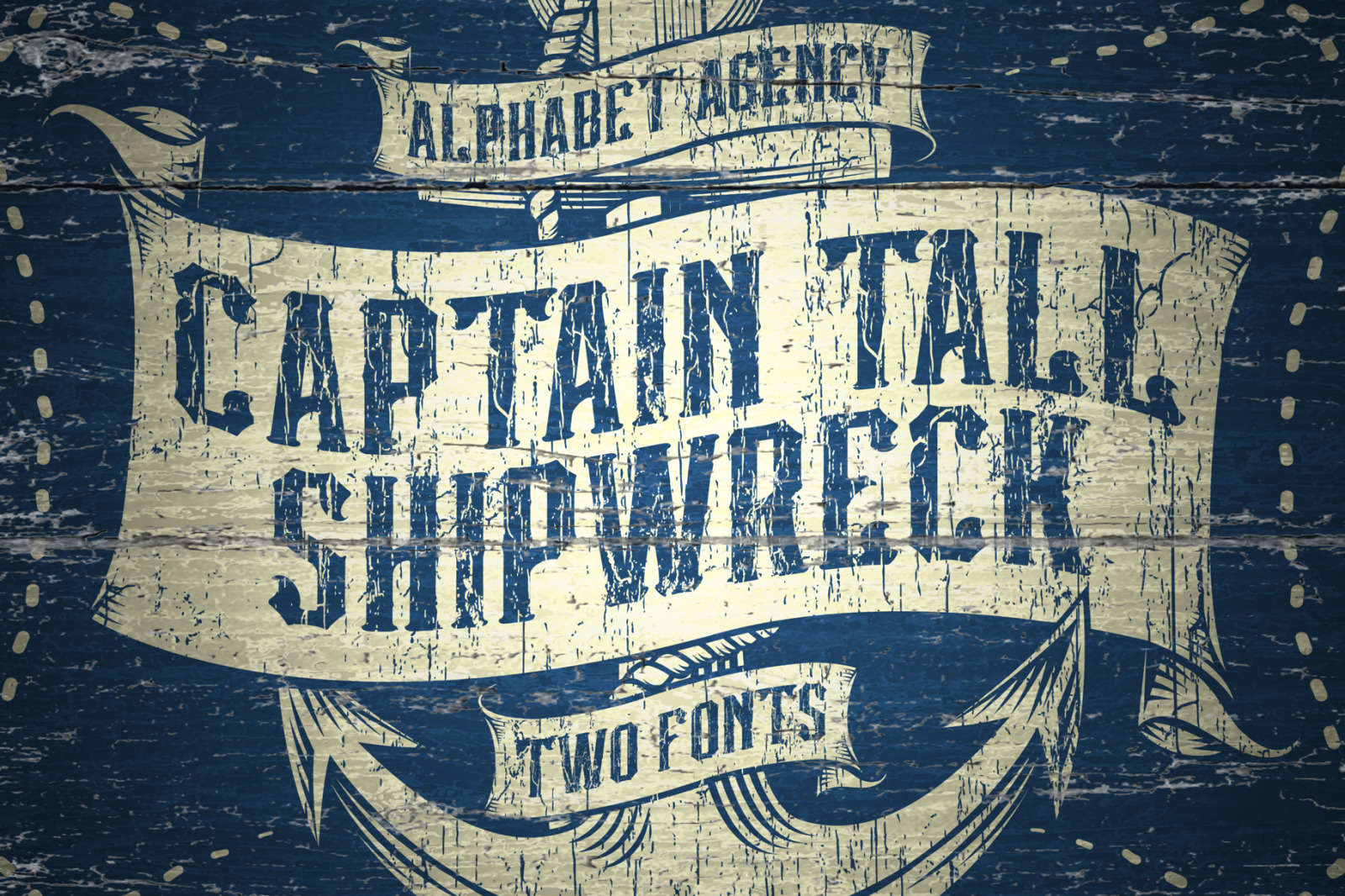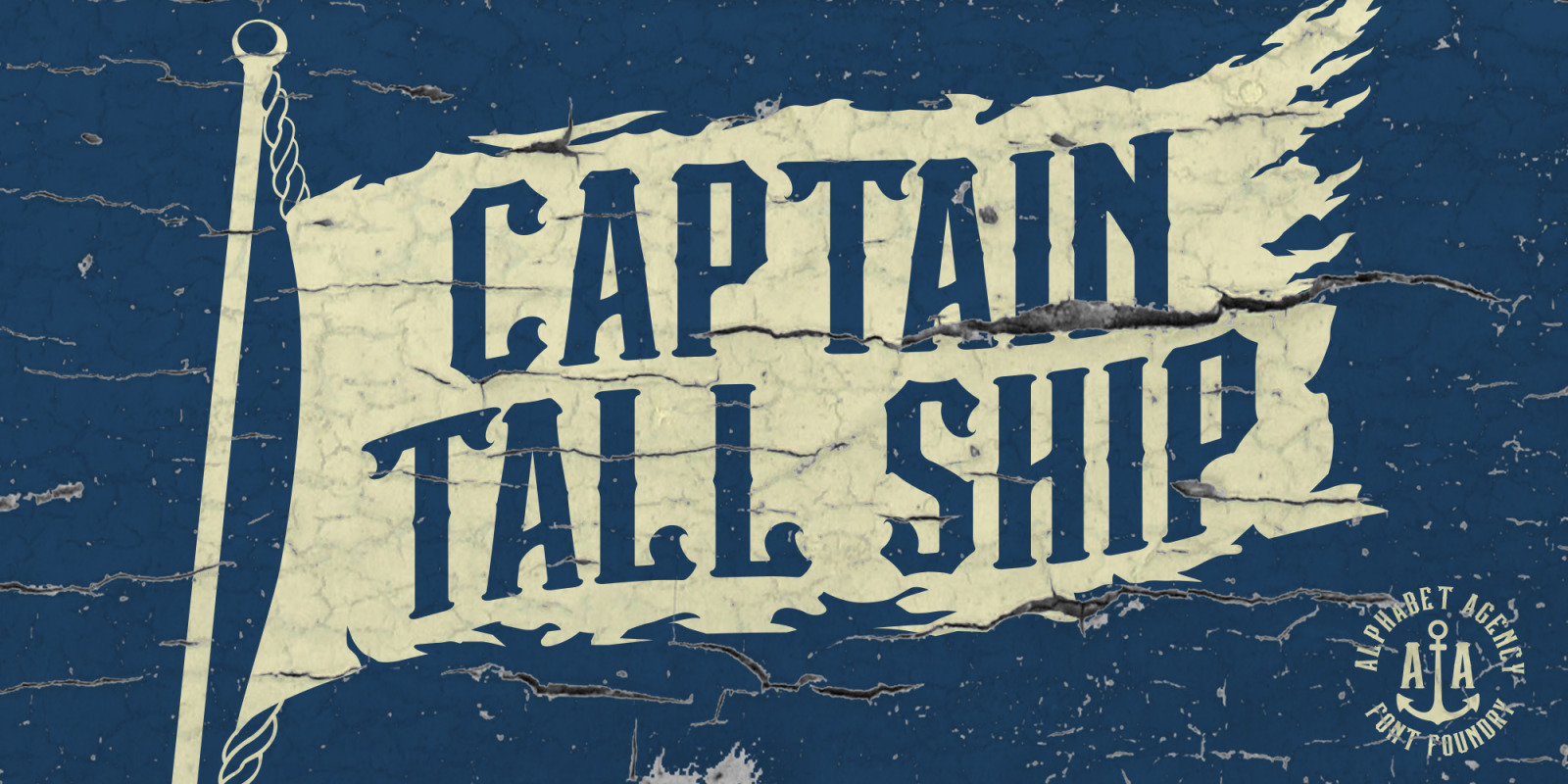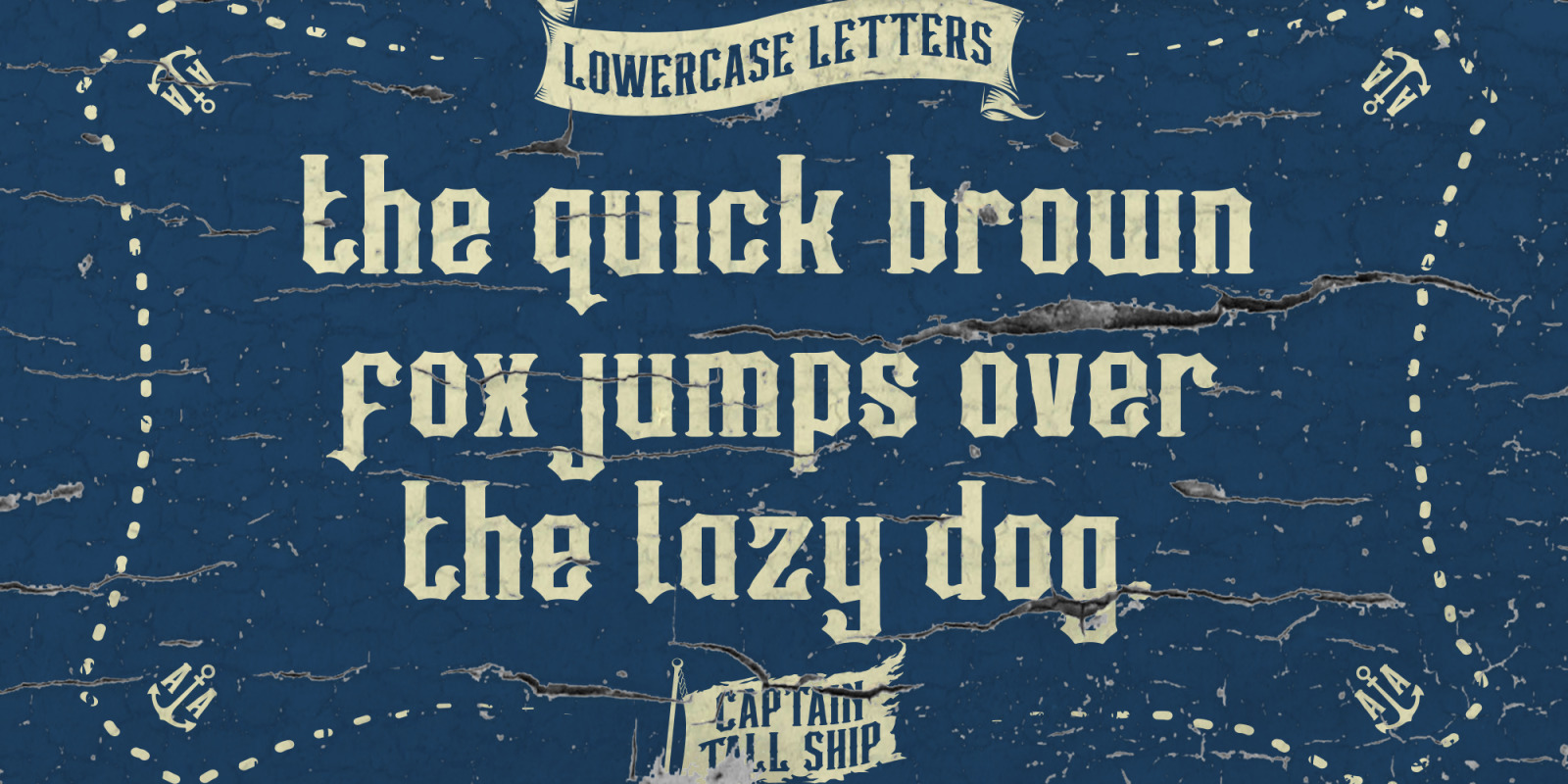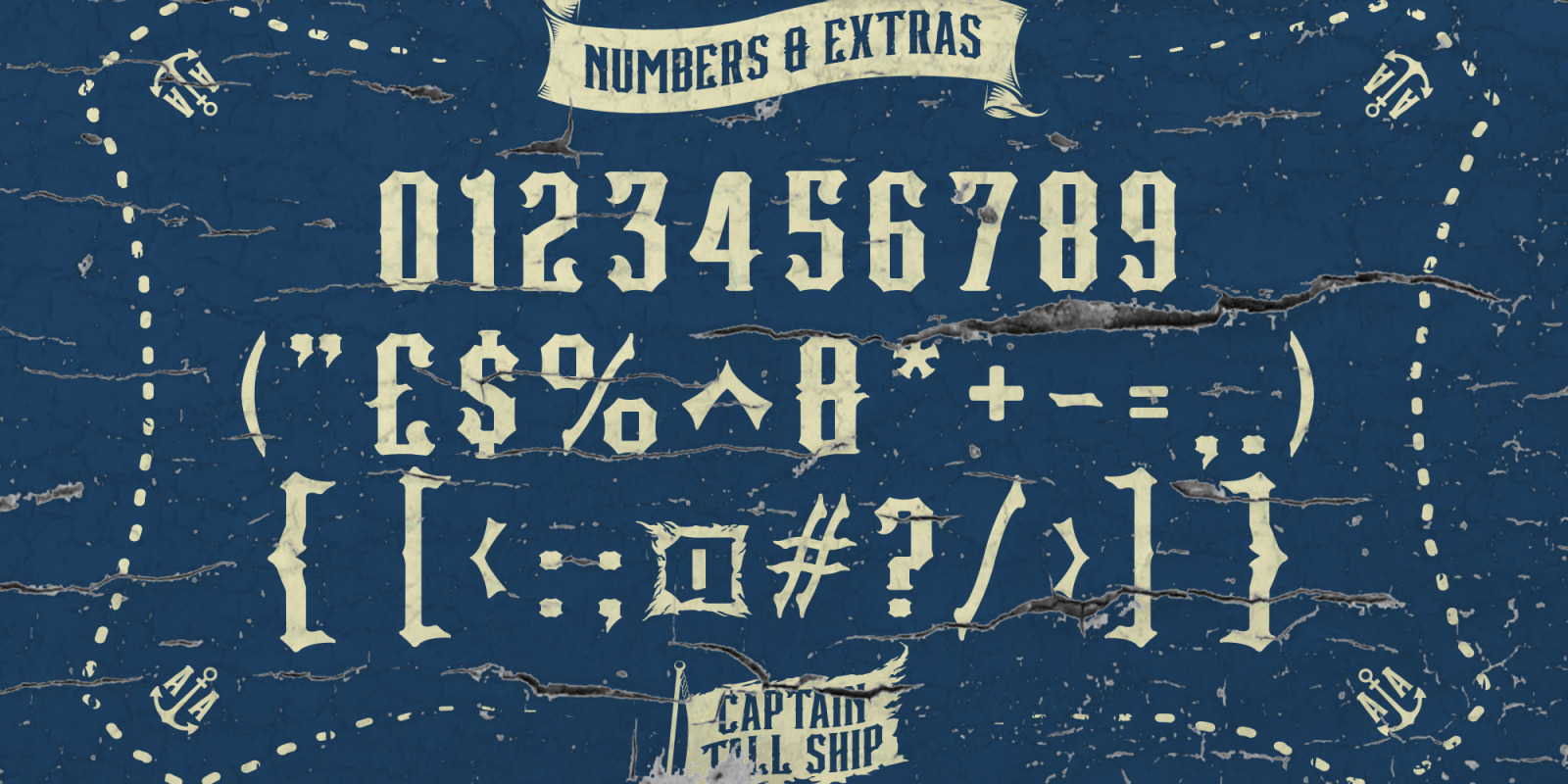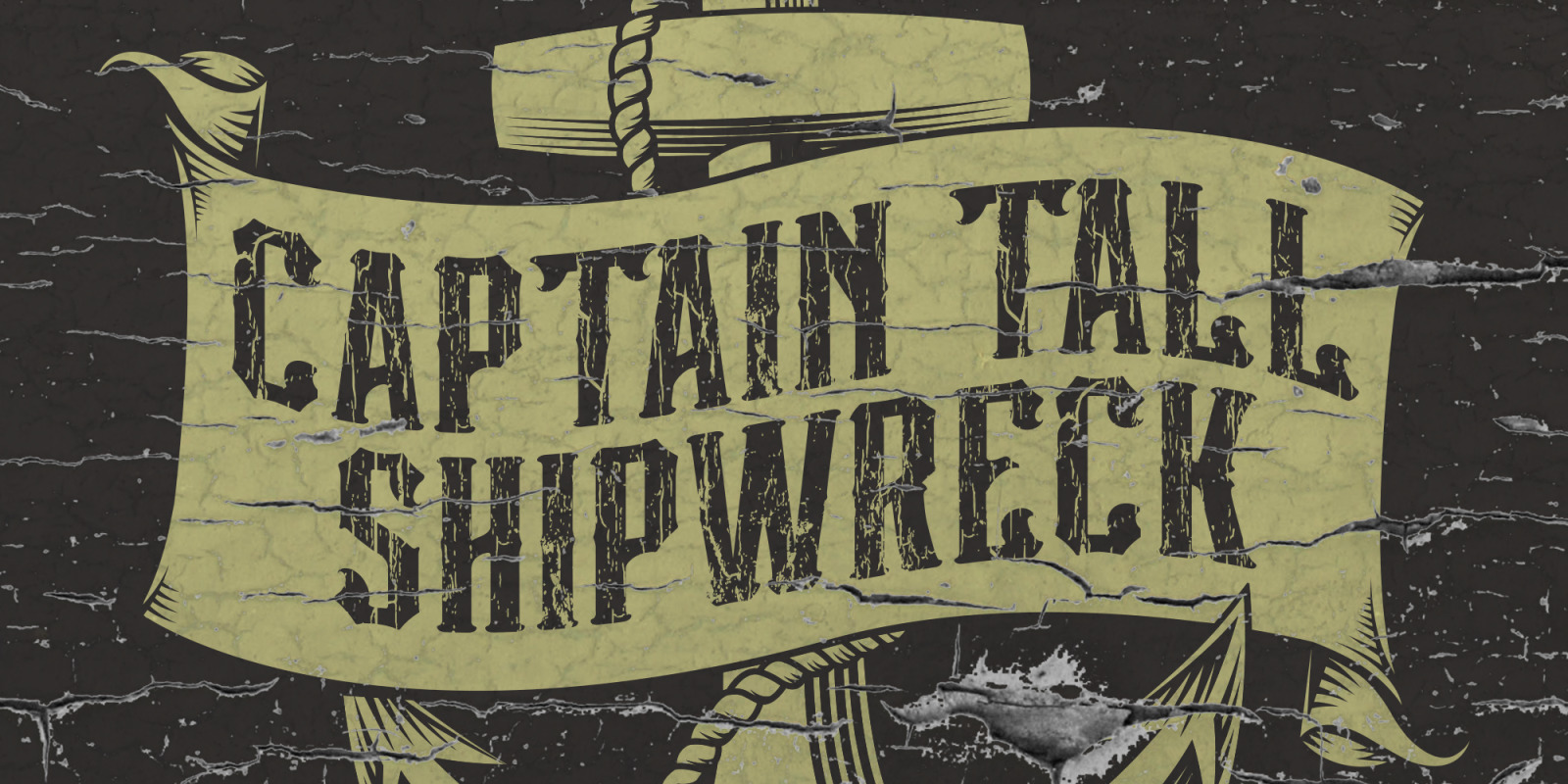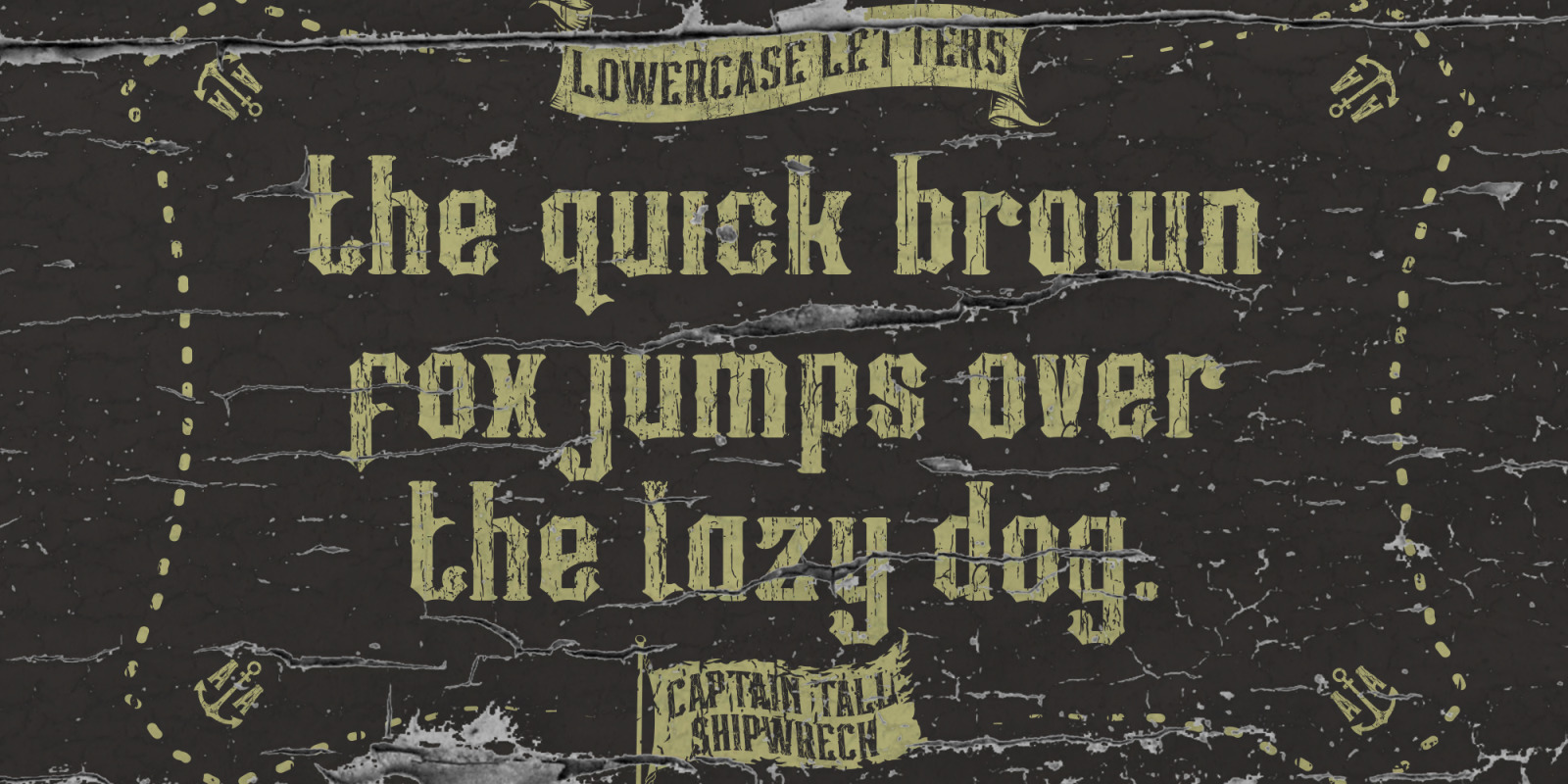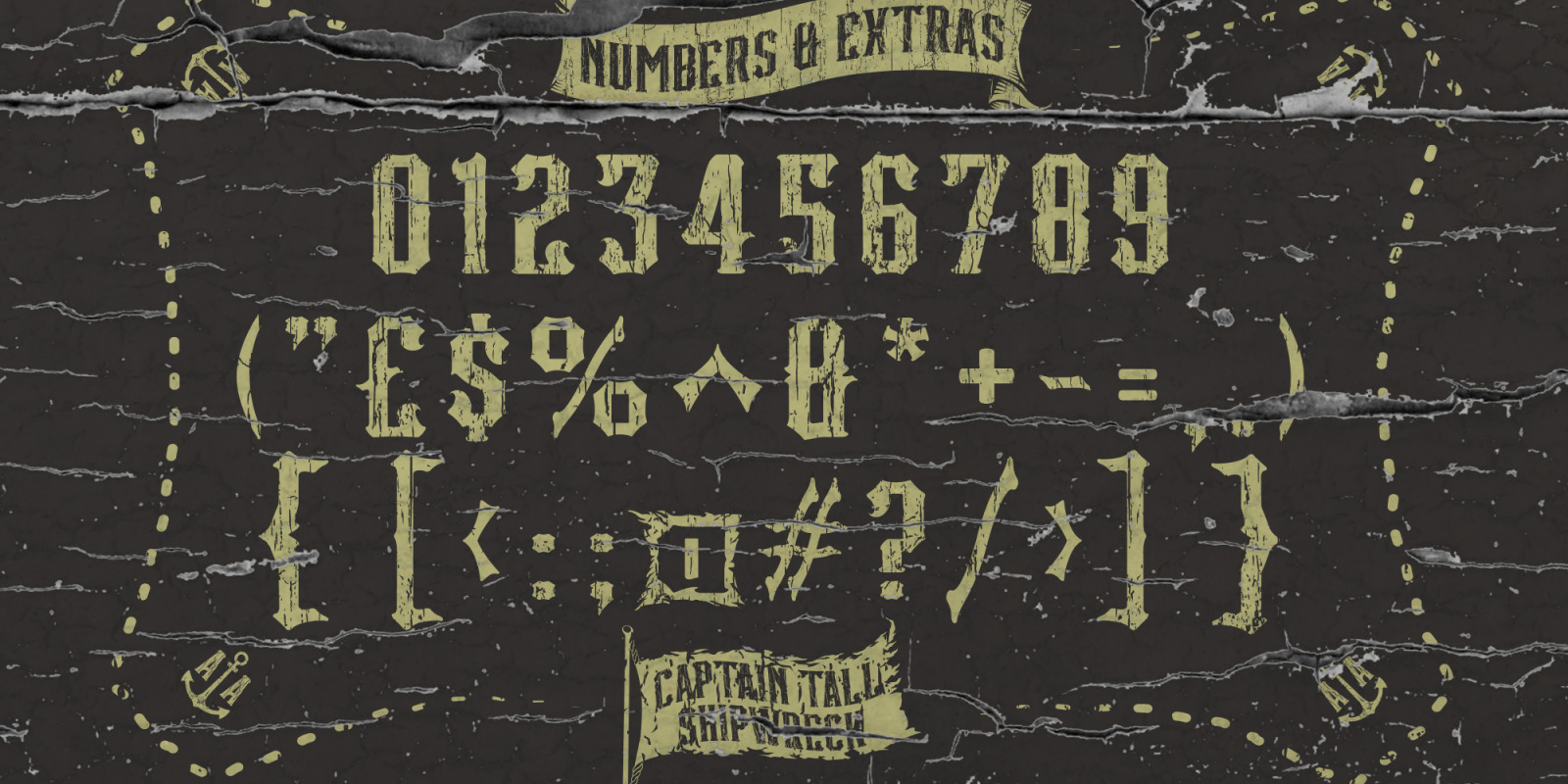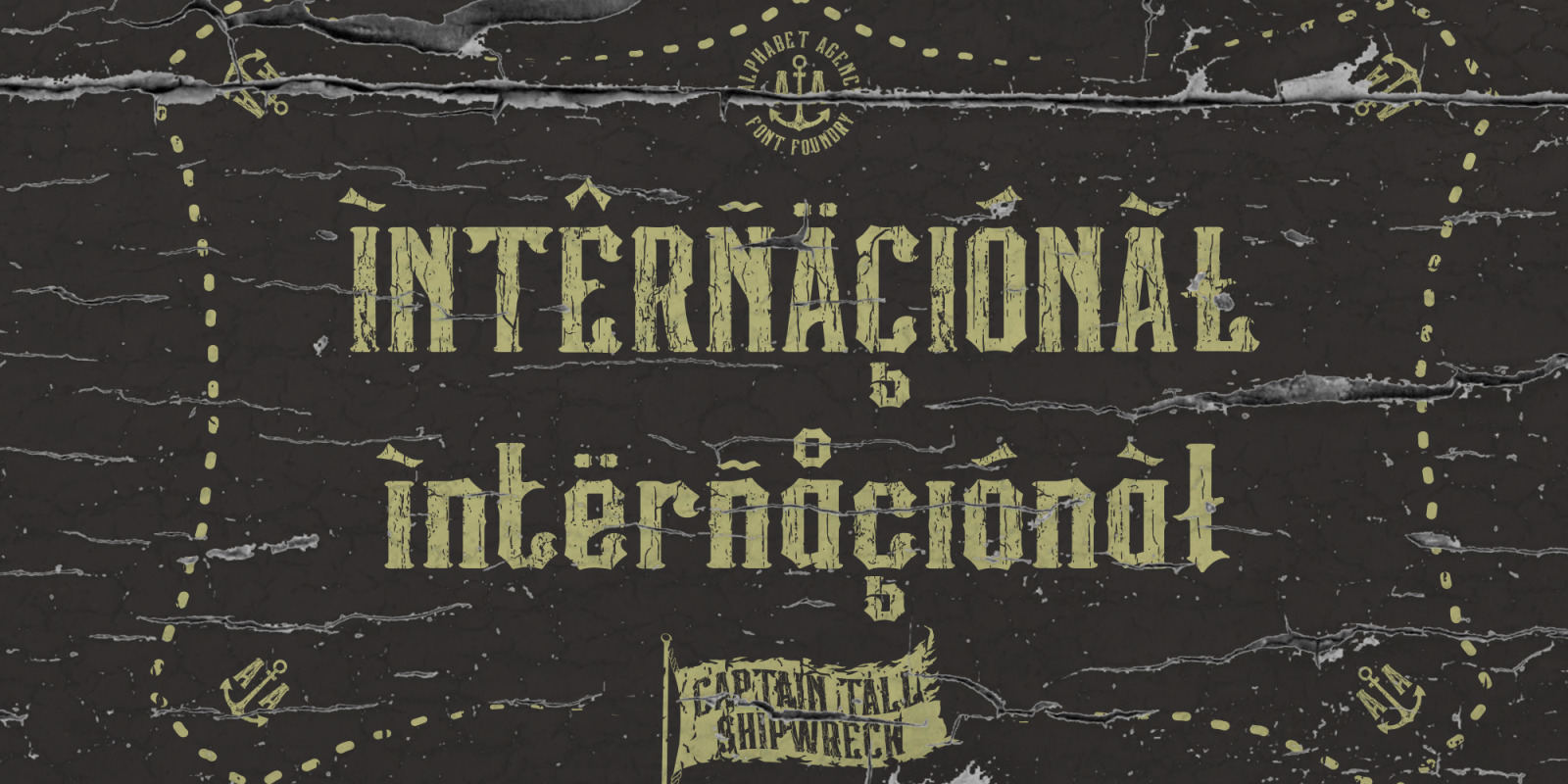
Captain Tall Shipwreck Font
Captain Tall Ship and Captain Tall Shipwreck are fonts inspired by the original Captain Shipwreck font which became the most popular font created by the Alphabet Agency Font Foundry.
While working on a commercial project, the client requested a taller and narrower font that fit the style of Captain Shipwreck for use on a seafood related menu. These fonts are are end result.
The font can work great with themes relating to the seaside such as seafood and pirates and adult beverage products establishments and related events.